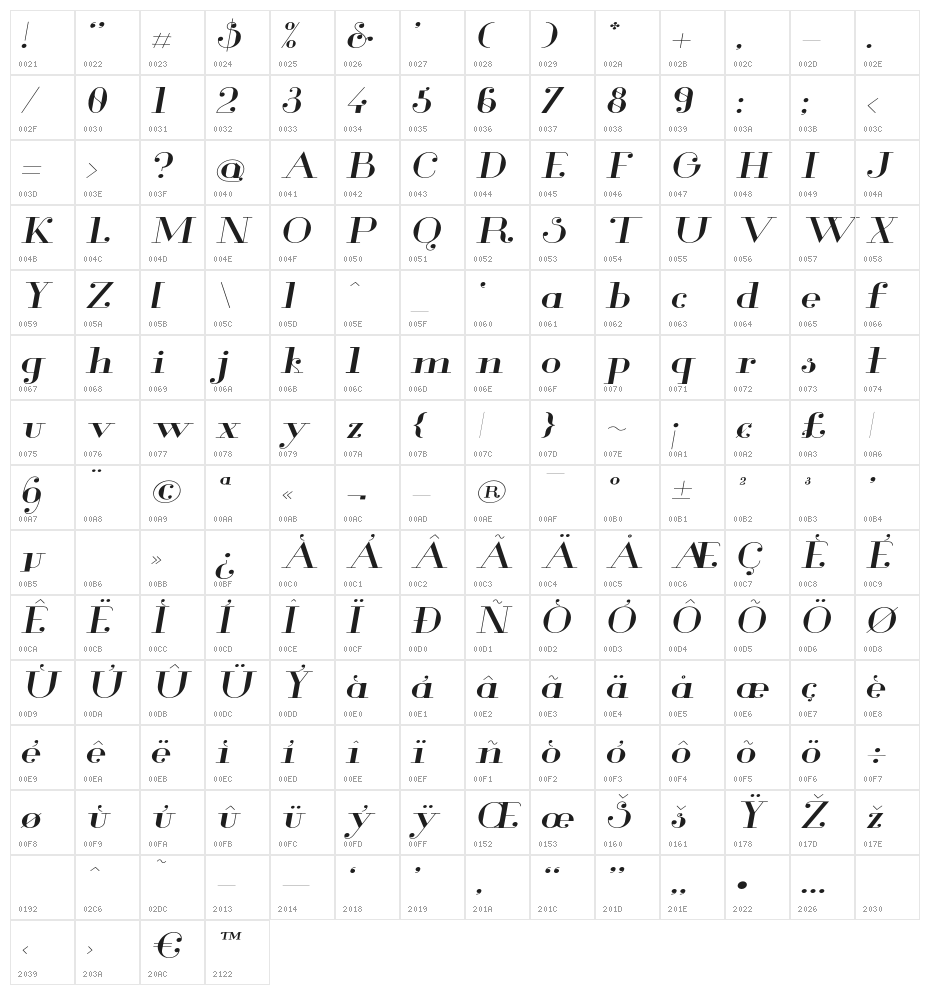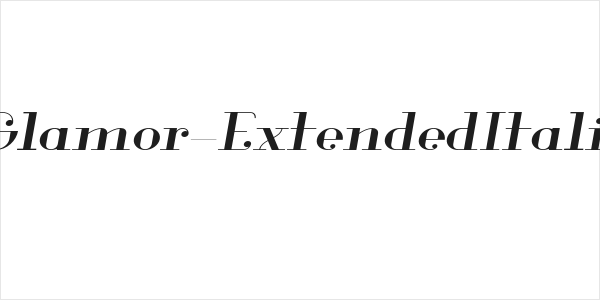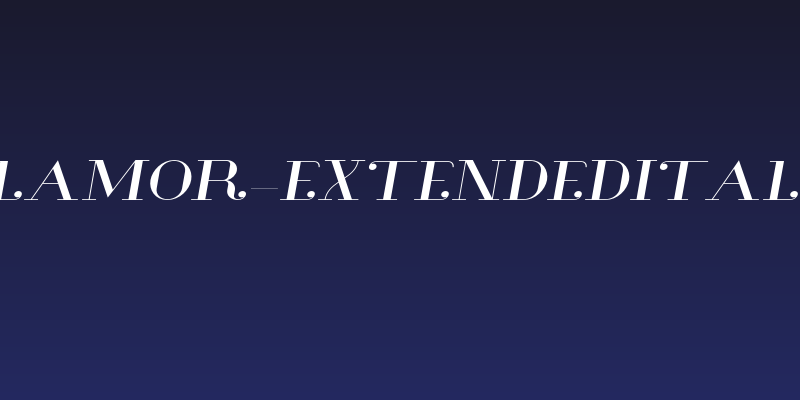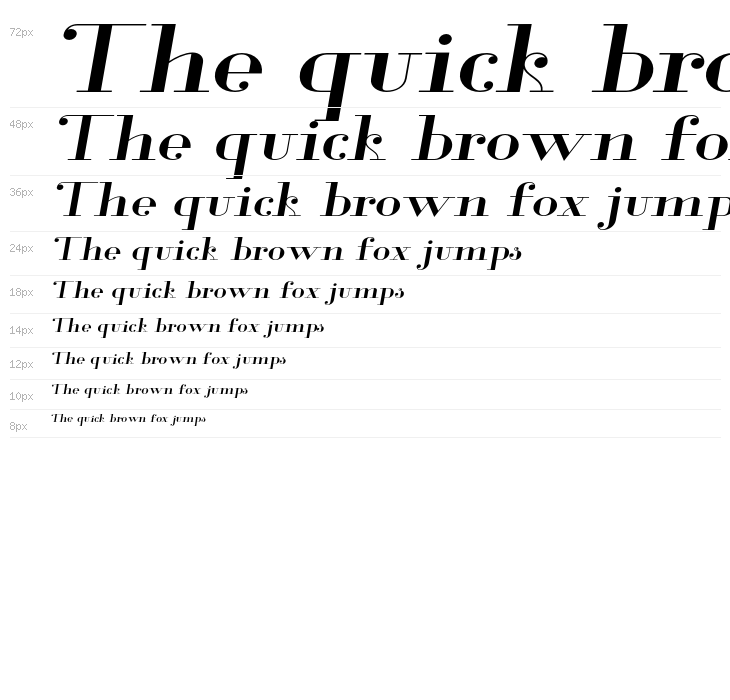
Glamor-ExtendedItalic Font
Glamor-ExtendedItalic Description
This font exudes elegance and sophistication with its extended italic style, characterized by elongated and graceful letterforms. The high contrast between thick and thin strokes adds a dramatic flair, making it ideal for luxurious and high-end design projects. The serifs are pronounced yet refined, contributing to a classic and timeless appeal. The overall design is sleek and modern, with a touch of vintage charm. The characters are well-spaced, ensuring readability while maintaining an artistic flow. This font is perfect for creating striking headlines, elegant invitations, and branding materials that require a touch of class.
| Overall Style | Elegant, Classic, Modern |
| Use Case | Headlines, Invitations, Branding |
| Proposed Projects | Ideal for luxury branding, wedding invitations, fashion magazines, and elegant packaging designs. |